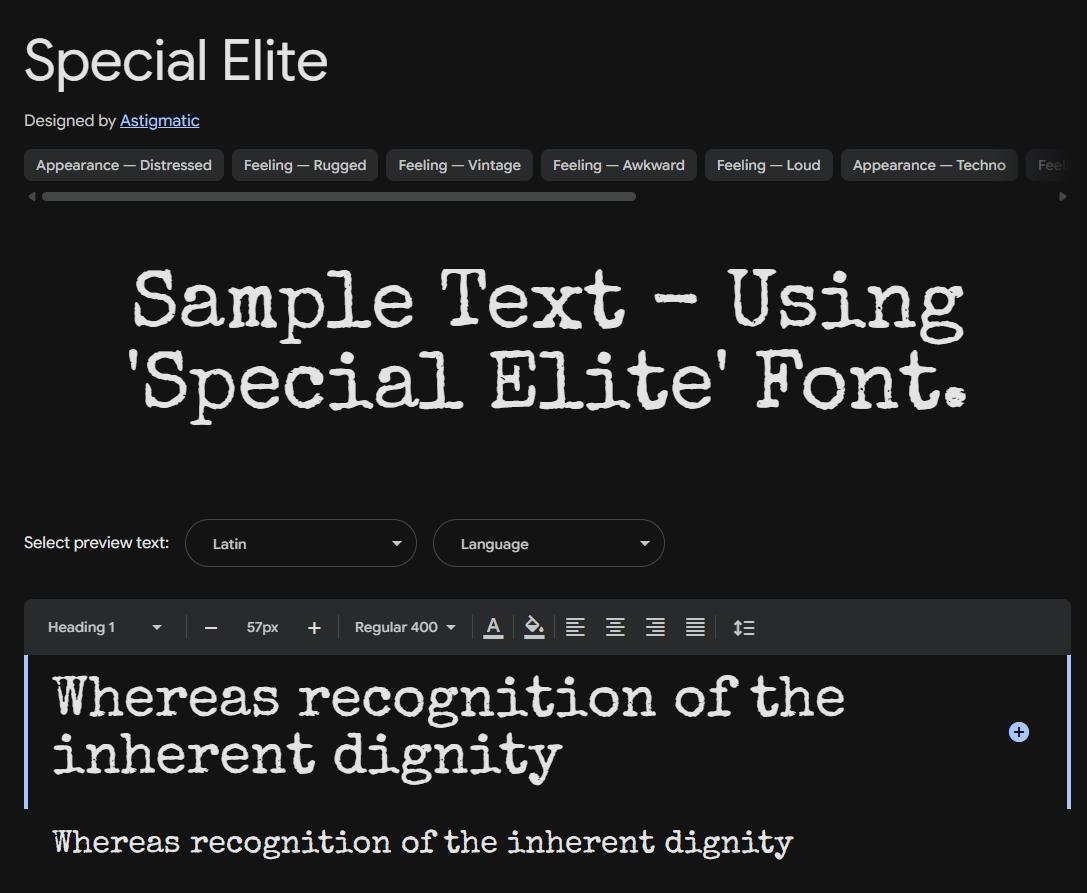
Engineered by Astigmatic as a singular-style tribute to historical analog percussion, Special Elite transcends basic typewriter aesthetics by digitizing the tactile grit of the Smith-Corona Special Elite Type No. NR6 into a high-fidelity OpenType format. This typeface utilizes distressed glyph silhouettes and nuanced ink-bleed textures to provide a high-contrast alternative to clinical modernism, blending the mechanical soul of a slab-serif with the pixel-grid optimization required for contemporary digital environments. Although it operates within a single style, its rhythmic cadence and idiosyncratic kerning pairs mimic the irregular pressure of a vintage strike-bar, offering a unique typographic density that anchors web content in a raw, documentarian narrative while maintaining the structural integrity necessary for semantic legibility across diverse viewport resolutions.
Special Elite serves as a sophisticated digital revival of the Smith-Corona Special Elite Type 66, expertly synthesizing a distressed, rugged aesthetic with a vintage texture that mimics the mechanical imperfections of mid-century typewriter strikes. While its rhythmic irregularity creates an intentionally awkward and loud visual cadence, the typeface transcends its analog roots to occupy a unique techno-industrial niche, appearing both innovative and futuristic through its juxtaposition of grunge-era grit and modern digital legibility. By leveraging high-fidelity ink-bleed simulations and slab-serif proportions, this font family communicates a sincere, excited energy, transforming the traditionally cold monospaced-inspired layout into a happy, tactile experience that resonates with authentic human craftsmanship in a post-digital design landscape.
Special Elite's distressed slab serif anatomy and simulated ink bleed present significant functional liabilities in sectors demanding high-fidelity legibility, such as pharmaceutical labeling or precision engineering documentation, where intentional glyph irregularity and variable stroke weights compromise rapid character recognition at compressed x-heights. From the perspective of cognitive ergonomics, the typeface's mimicked mechanical wear introduces excessive visual noise that hinders information processing speeds, making it structurally unsuitable for dense legal contracts or FinTech interfaces where sub-pixel rendering clarity and WCAG-compliant readability are essential for establishing institutional trust. Furthermore, its vintage typewriter aesthetic creates a discordant brand semiotic for high-end luxury goods or medical research institutions, as the inherent "grunge" texture lacks the geometric precision and kerning stability required to project an image of modern sophistication or high-resolution reliability in a digital-first marketplace.
Special Elite is most effective in designs that evoke nostalgia, vintage themes, or a raw, analog typewriter feel. Its distressed slab serif anatomy utilizes uneven stroke widths and ink-bleed artifacts to achieve a high degree of "visual grit" that mimics 19th-century Remington smithing.
While highly characteristic, this typeface is generally not recommended for extended reading due to its irregular character shapes. The inherent lack of a consistent baseline and the presence of rough edges increase cognitive load, significantly reducing reading speed compared to high-legibility grotesques.
It pairs most effectively with clean, geometric sans-serifs or modern monospaced fonts to create a stark visual contrast. Utilizing a low-contrast sans-serif establishes a hierarchical balance where the Special Elite "stamped" texture serves as a primary display element against a stable typographic grid.
In minimalist designs, Special Elite acts as a focal point that breaks the sterility of clean lines with its organic imperfection. From a composition standpoint, the high negative space within its "open aperture" characters allows it to function as a tactile graphic element without overwhelming the white space.
This font excels in headlines where a sense of urgency, history, or a "classified document" vibe is required. Because it lacks a native bold weight variant, its impact as a display face relies on optical sizing and the unique smudge aesthetics of its slab-serif terminals.
The font maintains visibility on dark backgrounds, but its fine, distressed details can get lost on heavily textured or busy patterns. Applying a slight "outer glow" or CSS "text-shadow" can mitigate the loss of edge definition caused by anti-aliasing issues on high-contrast, dark-mode interfaces.
Usually, Special Elite is avoided in high-tech branding unless the goal is to create a "retro-tech" or "lo-fi" aesthetic. Modern tech branding typically favors high x-heights and geometric precision, whereas this font's variable kerning and ink-trap simulations communicate manual labor rather than digital automation.
Increasing the letter spacing can improve the distinctness of each character, preventing the "ink-bleed" effect from overlapping during rendering. Precise tracking adjustments help compensate for the font's fixed-width origins, preventing "letter crowding" that occurs due to its irregular glyph widths and sidebearings.
It is inappropriate for formal corporate documentation as it lacks the professional neutrality and uniformity required for legal or financial clarity. The "grunge" aesthetic of its distressed stems contradicts the "perfect finish" expected in corporate identity systems, which usually demand high-fidelity vector rendering.
Special Elite is risky for functional UI elements because its decorative nature can obscure call-to-action text at small pixel sizes. Testing reveals that at sub-14px sizes, the "rough-hewn" counters and terminals suffer from heavy pixelation, potentially degrading the "perceived affordance" of interactive components.